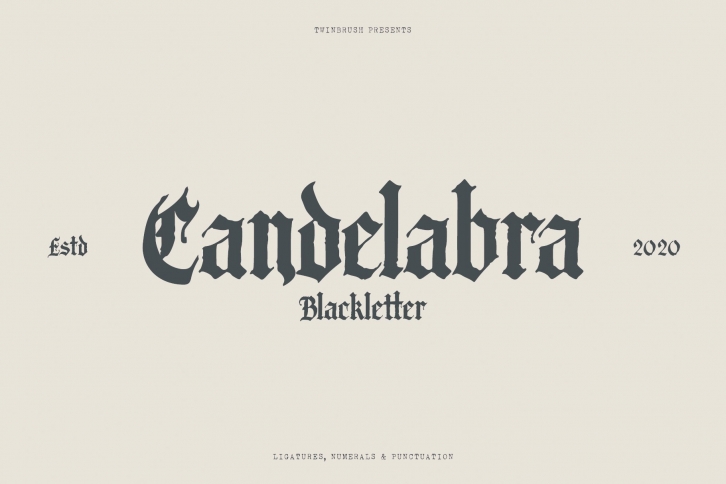
Candelabra Blackletter is a gorgeous font that was realeased on July 28, 2020. The font can be used in many style contexts and design environments. Perfect for invitations, magazines, websites, logos, and more! It was designed by Twinbrush and the file size is 5.45 MB. Thanks for checking out this font!